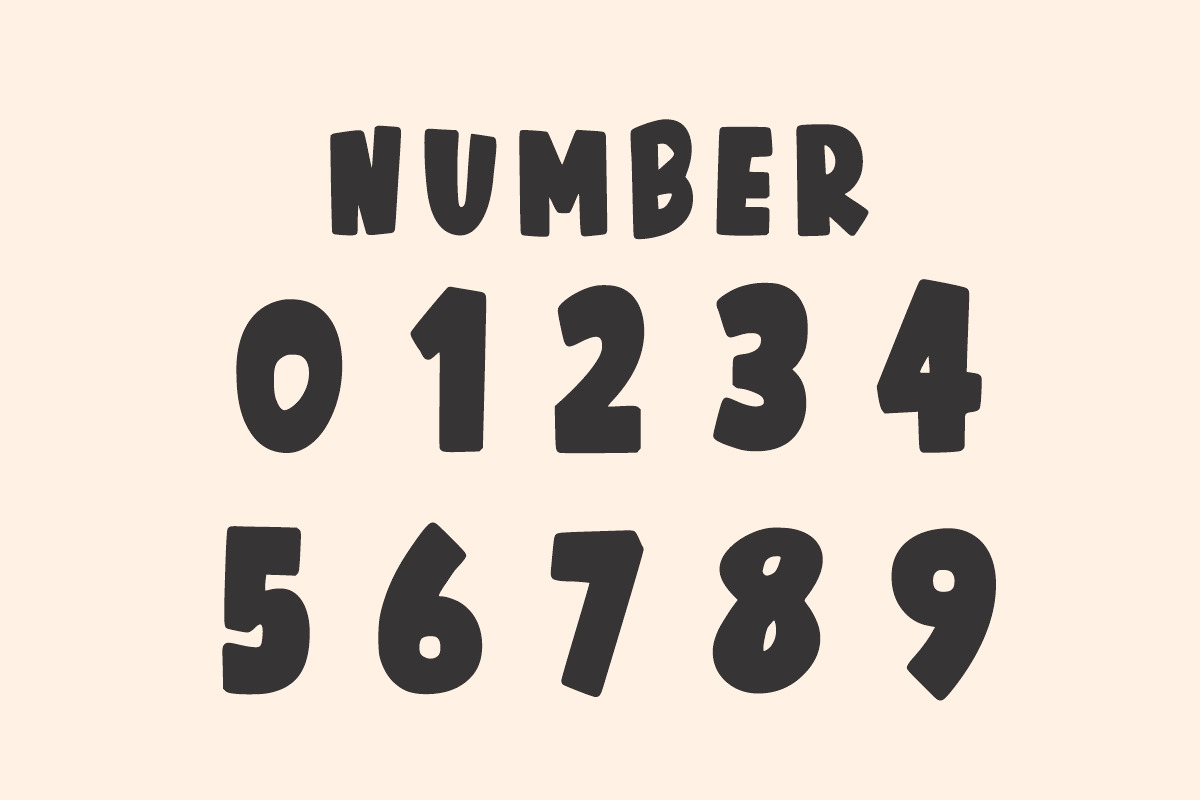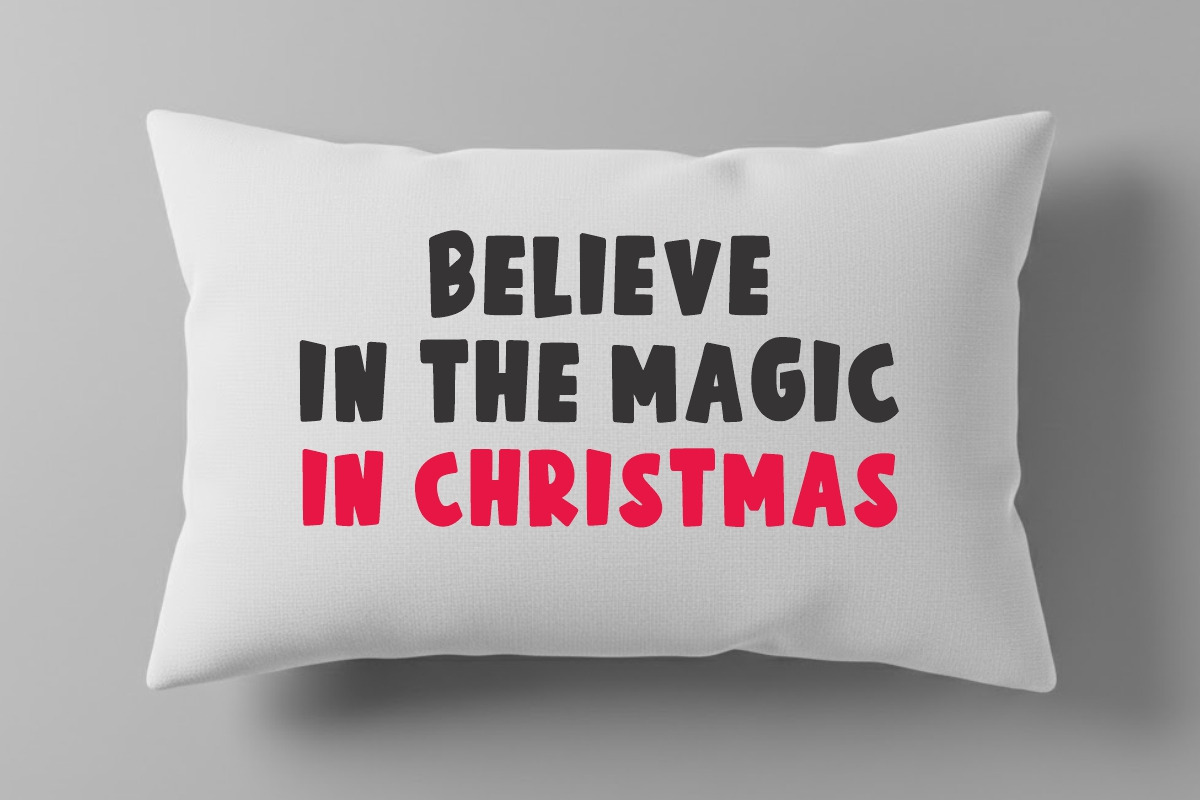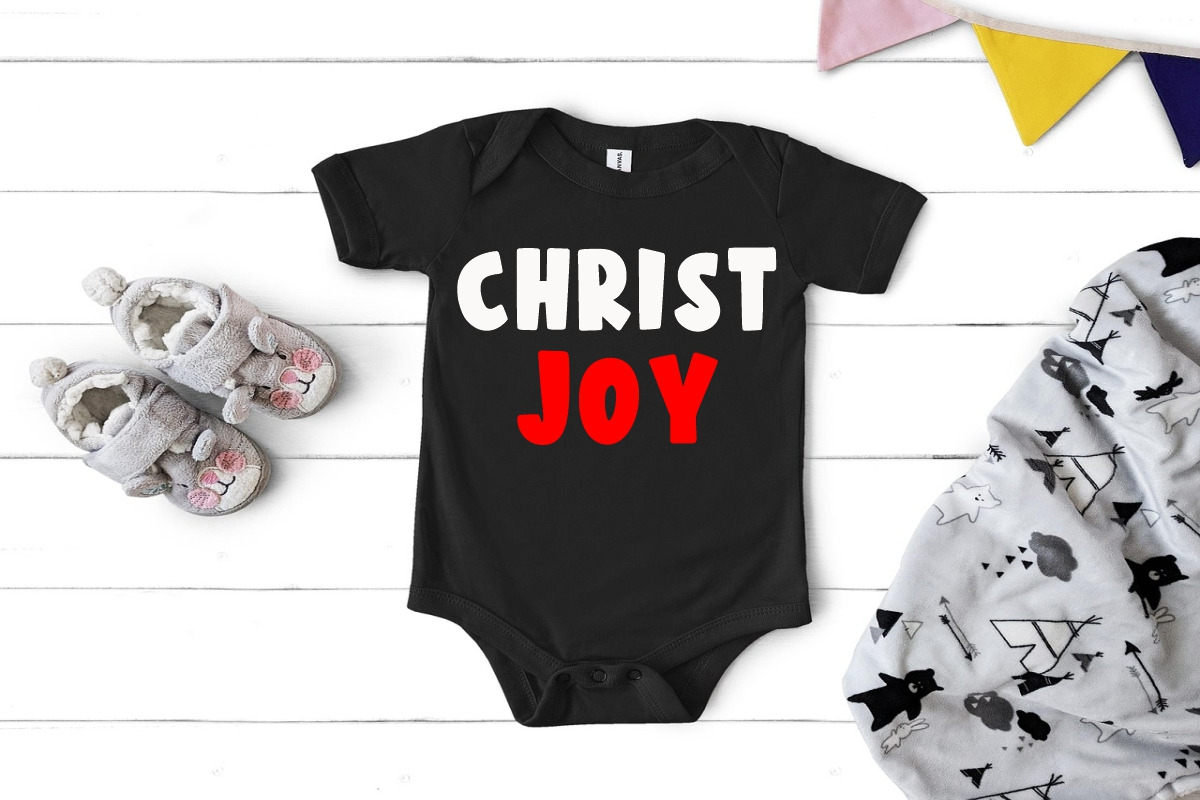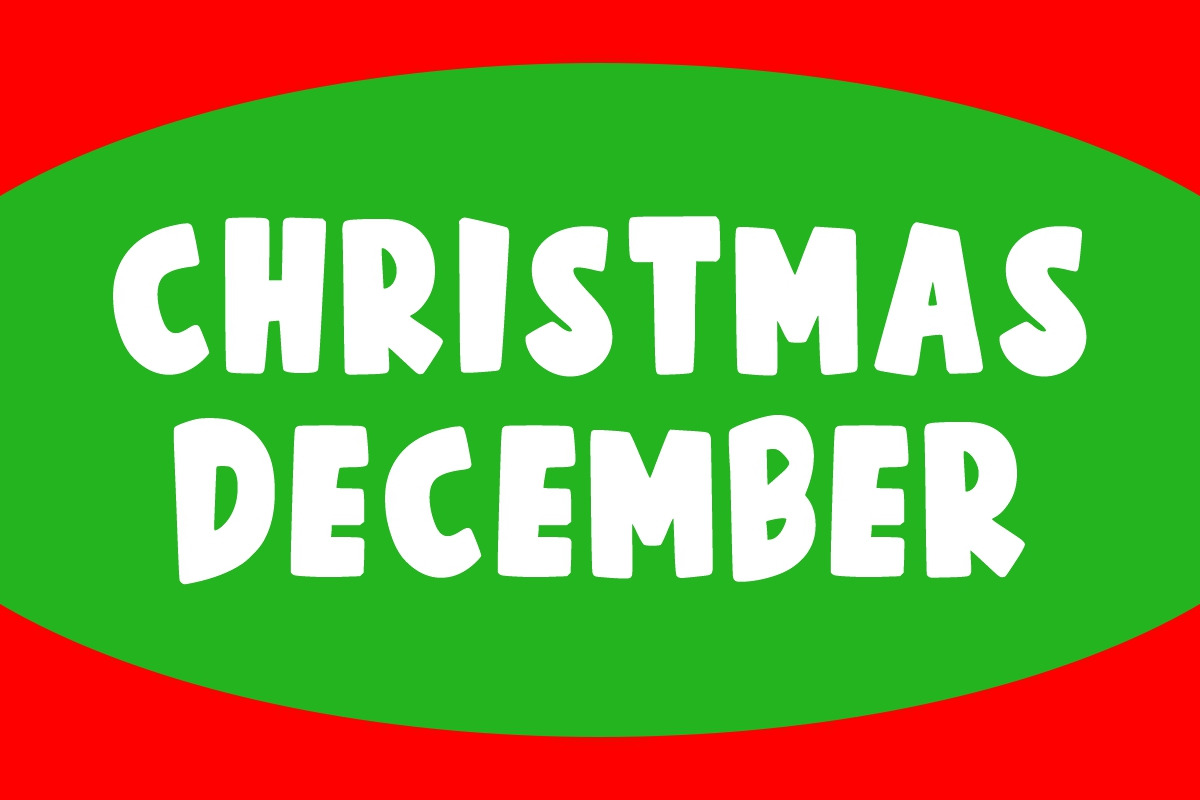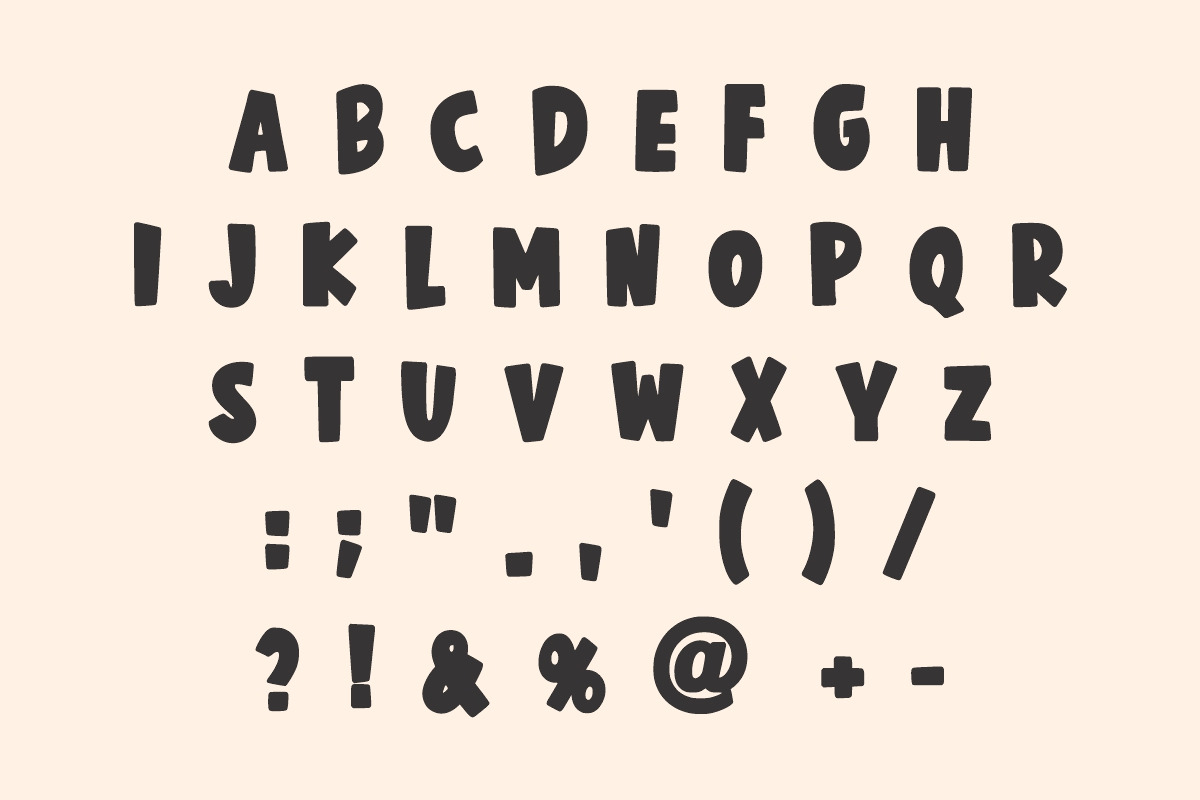
Joy Grinched
Joy Grinched is a playful, wonderfully chunky display font that brings a bouncy, whimsical, and truly memorable character to holiday and children’s designs.
This typeface features heavy, rounded letterforms and a slightly irregular baseline, giving it a joyous, hand-drawn quality that feels instantly warm and inviting. It’s perfectly suited for children’s books, fun Christmas packaging, cartoon titles, greeting cards, and any project where a big, friendly, cartoon aesthetic is needed to evoke happiness and laughter.